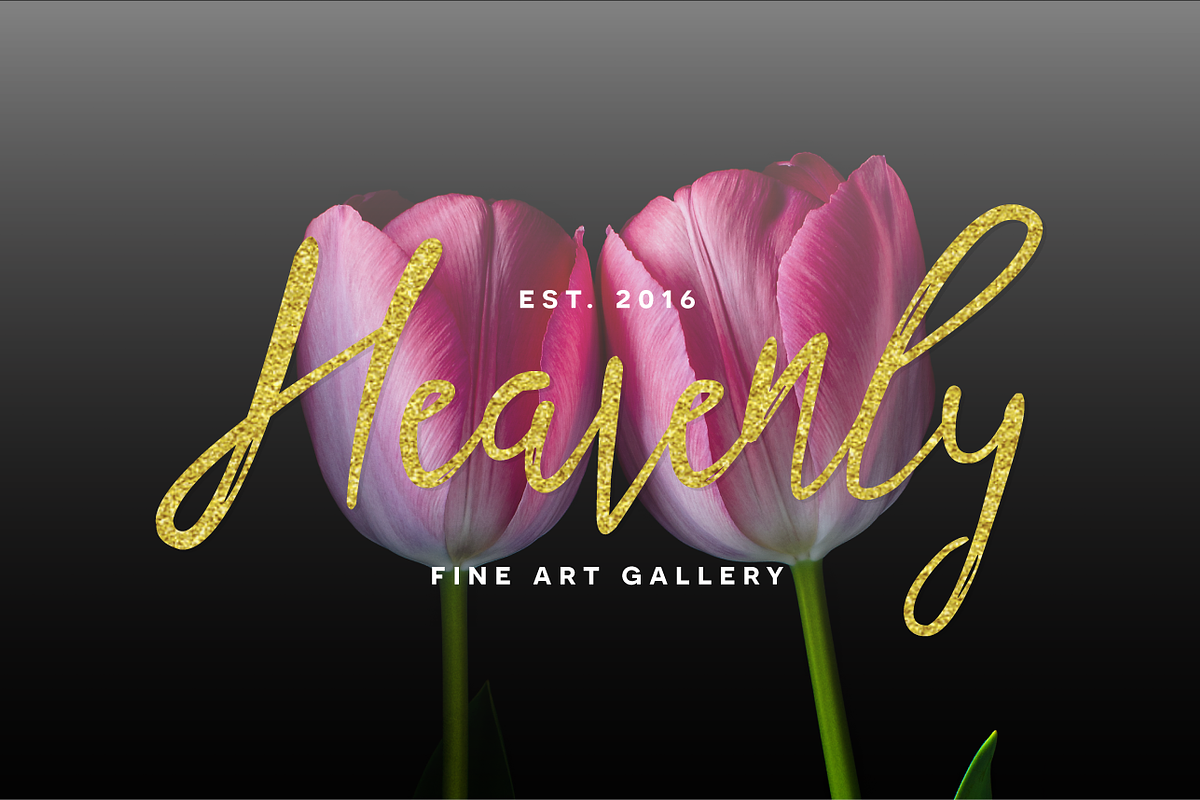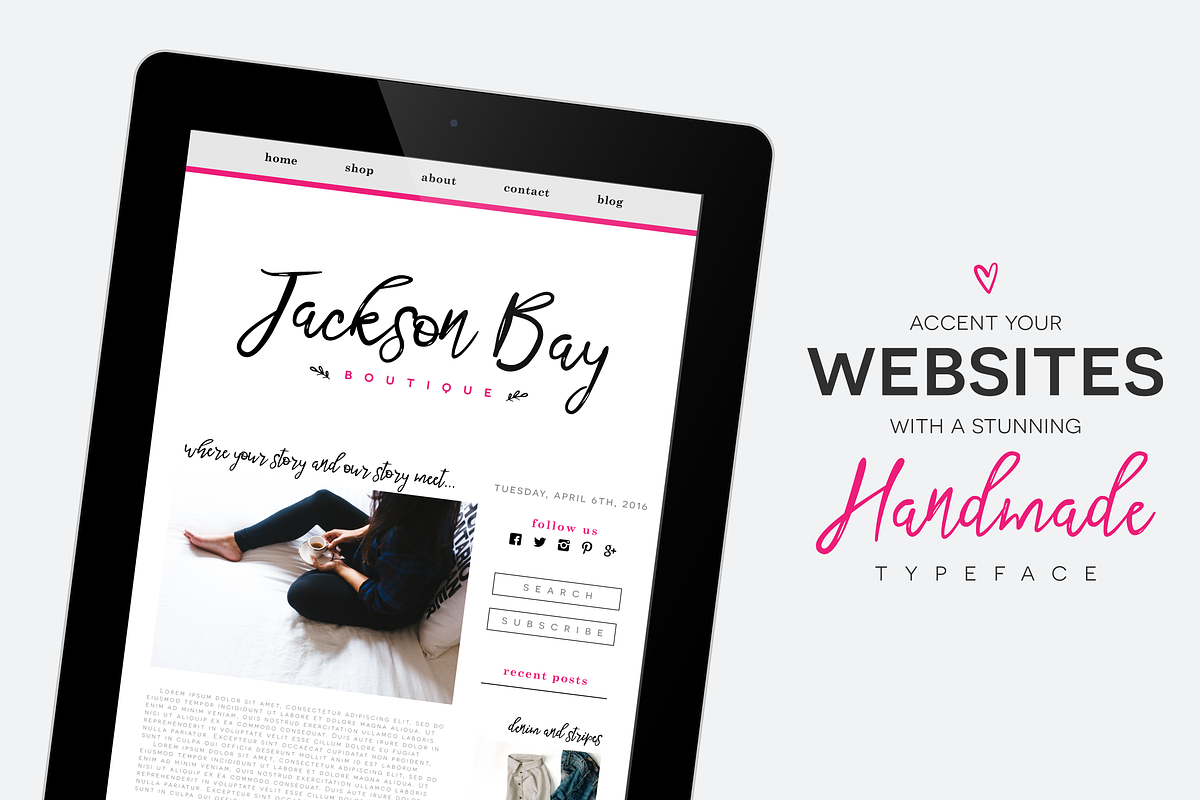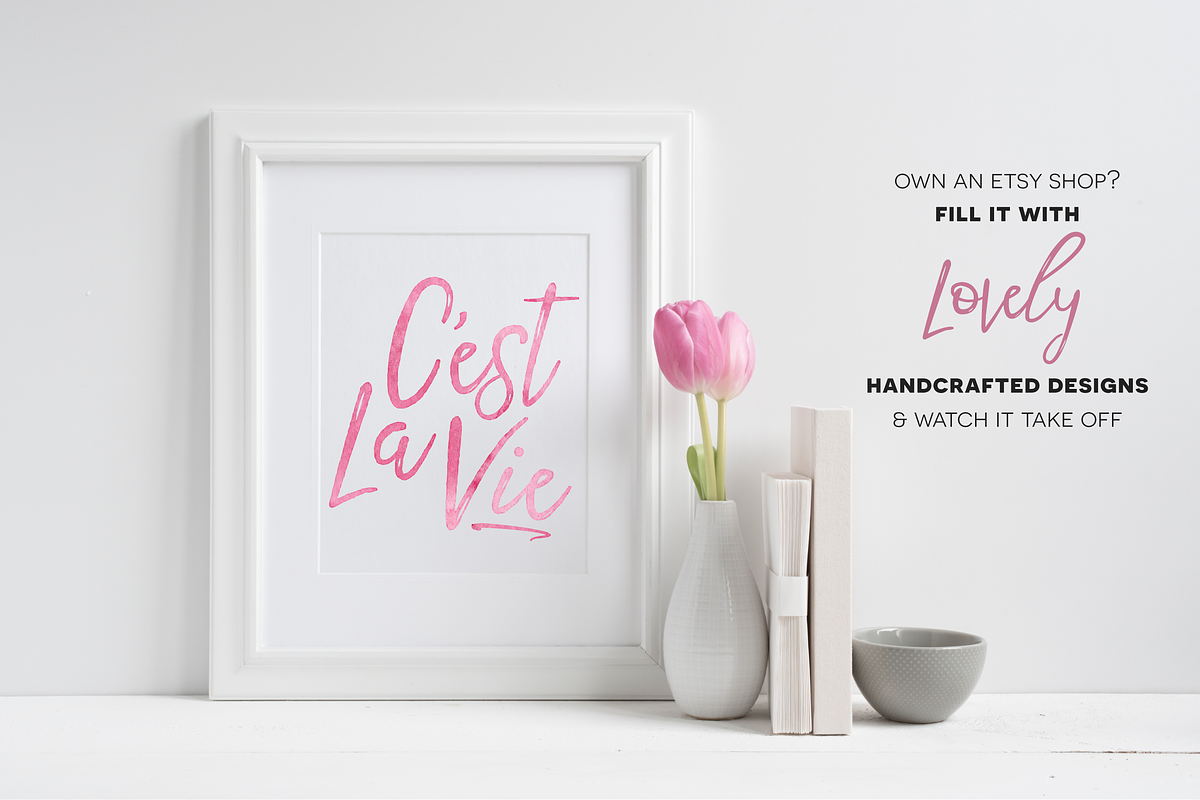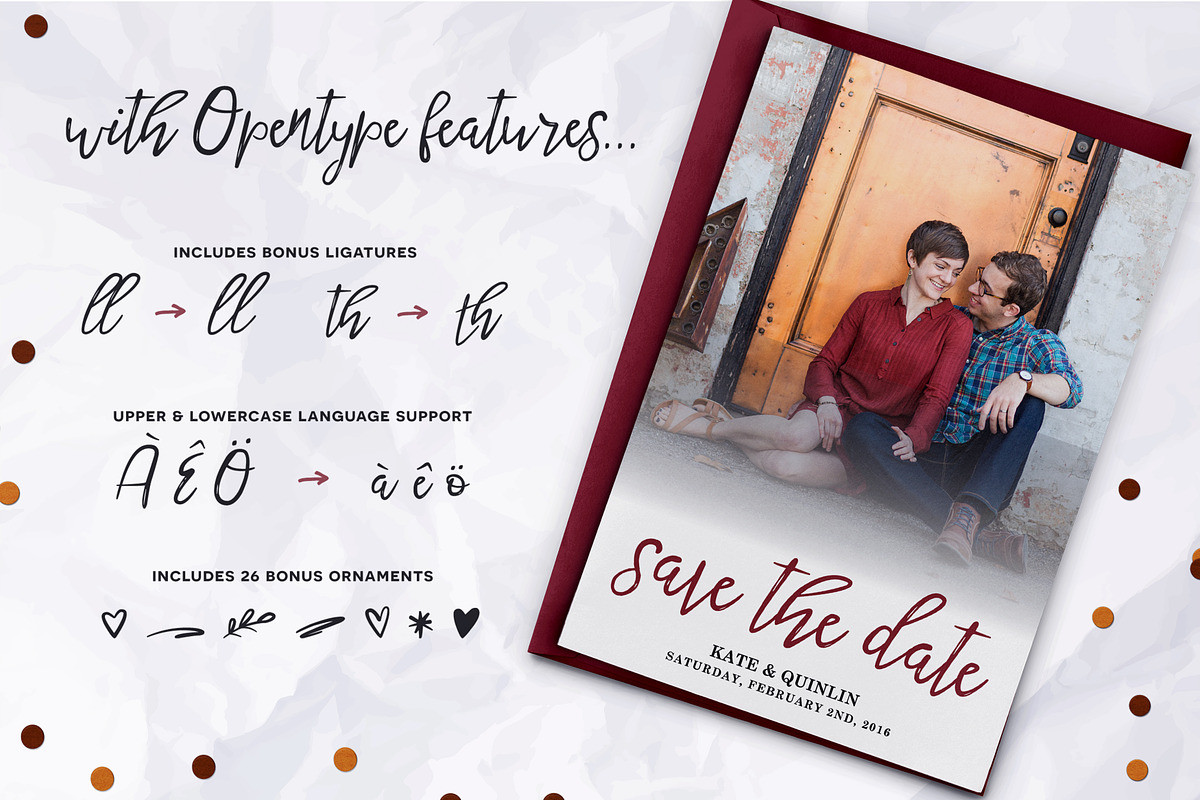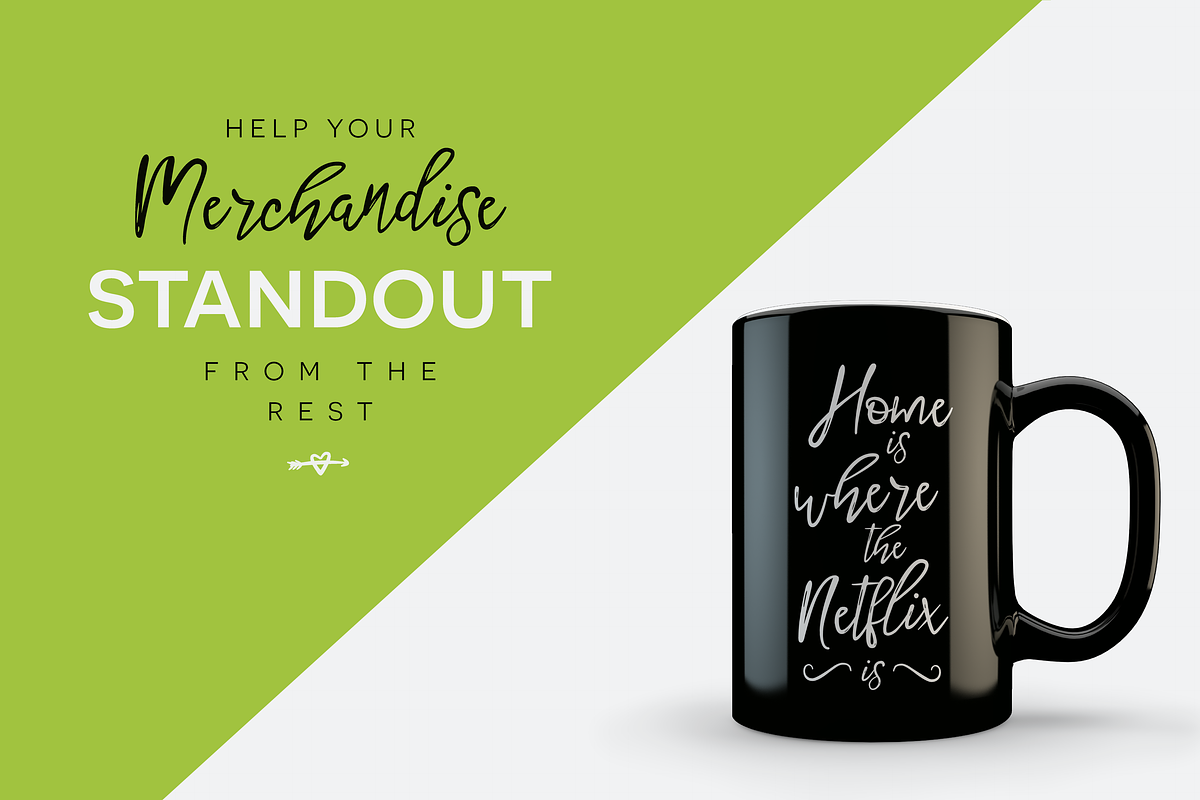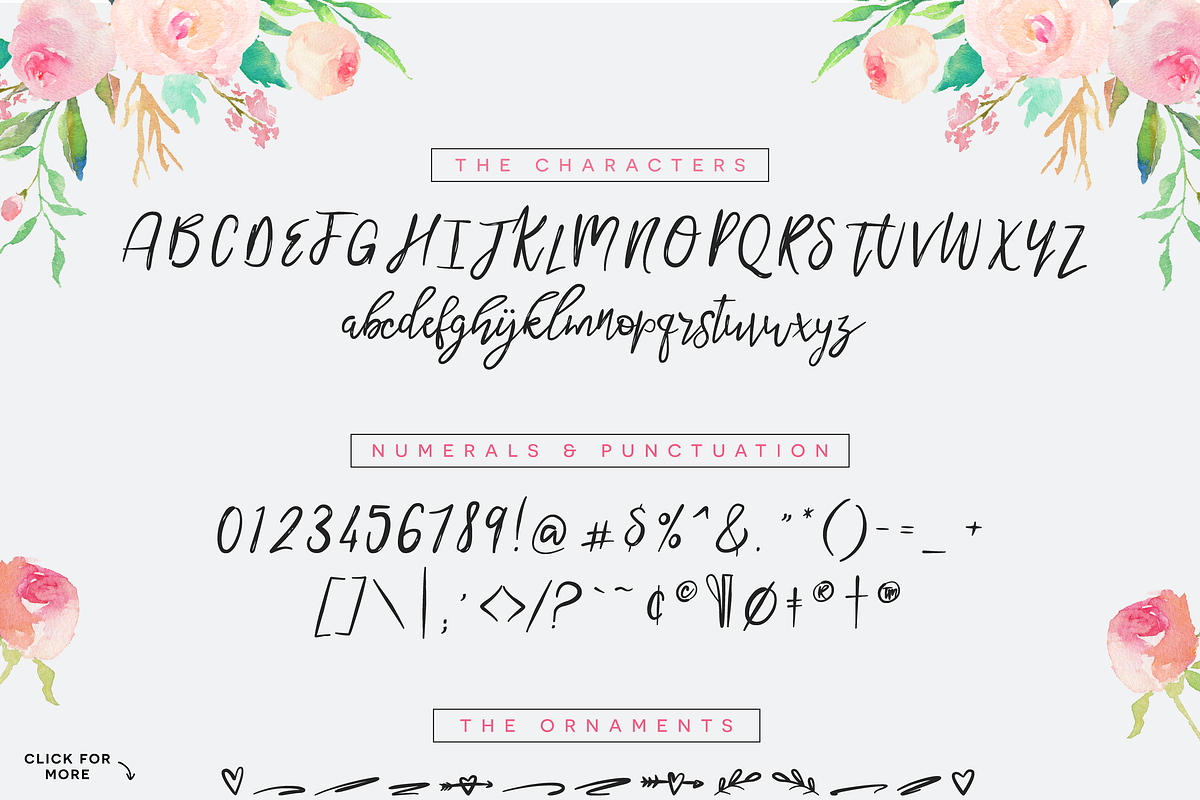
Twenty Nine Font + Bonus
Twenty Nine Font + Bonus by Flycatcher Design is a font selected for branding, posters, packaging, typography.
- Twenty Nine Ornaments
Why Twenty Nine Font + Bonus is worth a look
Twenty Nine Font + Bonus by Flycatcher Design fits naturally into Branding, posters, packaging, typography.